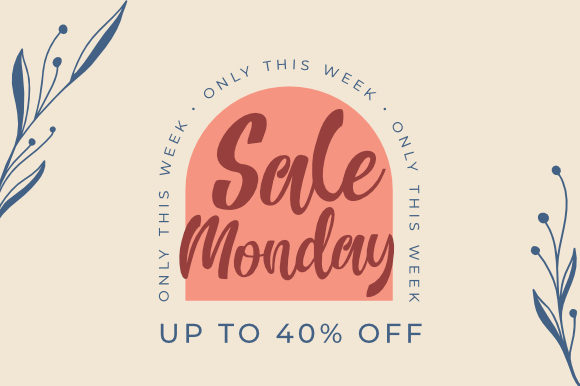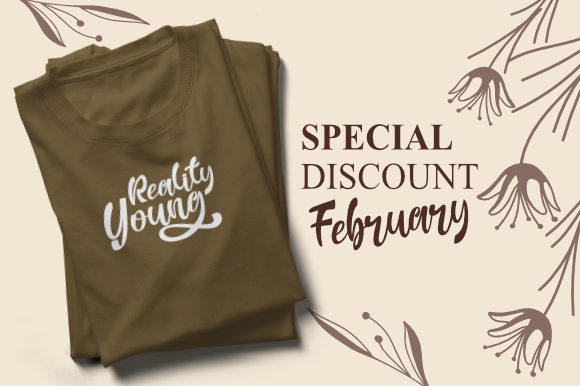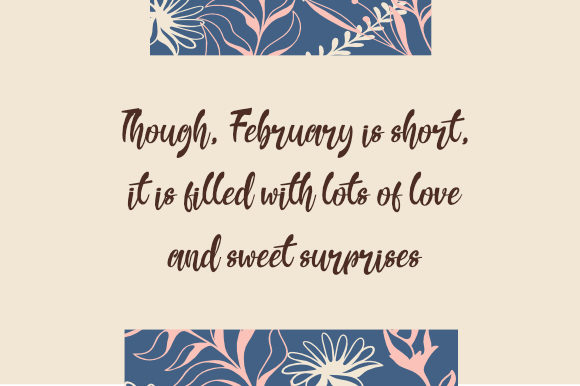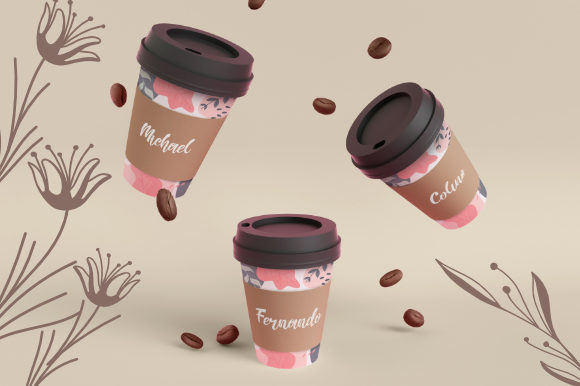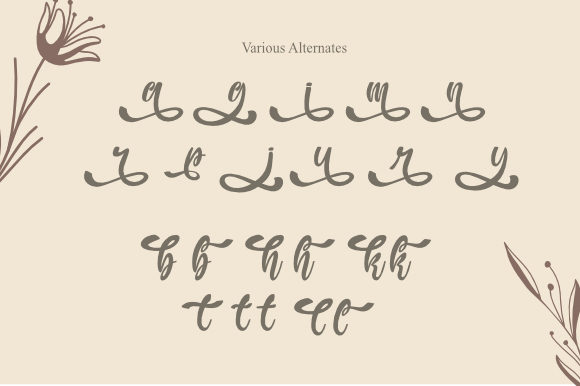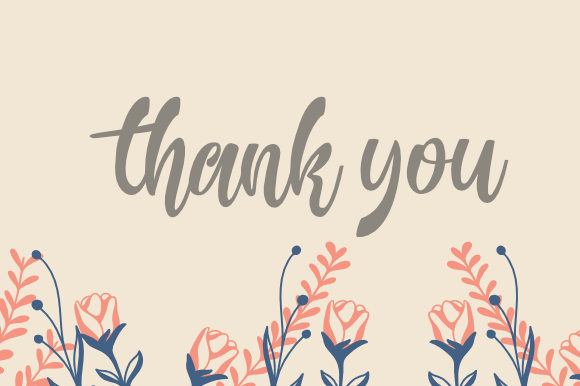
Habits Monuga Font: Elevate Your Designs with a Lovely and Relaxed Paint Brushed Script Font
In the world of typography, fonts play a crucial role in conveying the tone and personality of a design. For designers and crafters, finding the perfect font can be a daunting task, especially when it comes to creating unique and eye-catching projects. This is where Habits Monuga font comes in – a lovely and relaxed paint brushed script font that can elevate any creation. In this article, we’ll dive into the features and benefits of Habits Monuga font, and explore how it can become an incredibly valuable asset to your font library.
What is Habits Monuga Font?
Habits Monuga font is a beautiful, hand-crafted script font that boasts a relaxed and casual feel. With its paint brushed texture, this font adds a touch of warmth and personality to any design. The font’s unique charm lies in its imperfections, which give it a humanized and organic look that’s perfect for creating engaging and emotive projects.
Key Features of Habits Monuga Font
- Unique paint brushed texture: The font’s texture gives it a distinctive, hand-painted look that’s perfect for creating artistic and creative projects.
- Relaxed and casual feel: Habits Monuga font has a laid-back, effortless vibe that’s ideal for designs that require a friendly and approachable tone.
- Highly legible: Despite its script nature, Habits Monuga font is highly legible, making it suitable for body text and longer forms of content.
- Versatile: This font can be used for a wide range of projects, from branding and advertising to packaging and digital media.
Benefits of Using Habits Monuga Font
So, why should designers and crafters consider adding Habits Monuga font to their library? Here are just a few benefits:
- Instantly elevate your designs: With its unique texture and relaxed feel, Habits Monuga font can instantly add a touch of sophistication and personality to your designs.
- Stand out from the crowd: This font’s distinctive look and feel can help your designs stand out in a crowded marketplace, making it perfect for brands and businesses looking to differentiate themselves.
- Save time and effort: With Habits Monuga font, you can create stunning designs quickly and easily, without having to spend hours searching for the perfect font or tweaking settings.
- Expand your creative possibilities: This font’s versatility means you can use it for a wide range of projects, from digital media to print materials, and everything in between.
Who Can Benefit from Habits Monuga Font?
Habits Monuga font is perfect for a variety of designers and crafters, including:
- Graphic designers: Whether you’re working on branding, advertising, or marketing materials, Habits Monuga font can add a touch of personality and sophistication to your designs.
- Digital artists: This font’s unique texture and relaxed feel make it perfect for digital art projects, such as illustrations, comics, and graphic novels.
- Crafters and scrapbookers: Habits Monuga font is ideal for crafters and scrapbookers who want to add a personal touch to their projects, such as journaling, card making, and paper crafting.
- Branding and marketing professionals: With its versatility and legibility, Habits Monuga font is perfect for branding and marketing professionals who need to create consistent, on-brand messaging across multiple channels.
In conclusion, Habits Monuga font is a lovely and relaxed paint brushed script font that can elevate any design. With its unique texture, relaxed feel, and high legibility, this font is perfect for designers and crafters who want to add a touch of personality and sophistication to their projects. Whether you’re working on branding, digital art, or crafting, Habits Monuga font is an incredibly valuable asset to have in your font library.